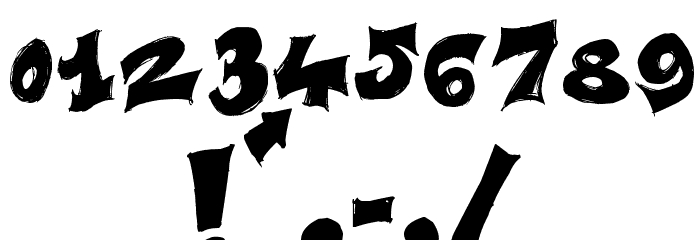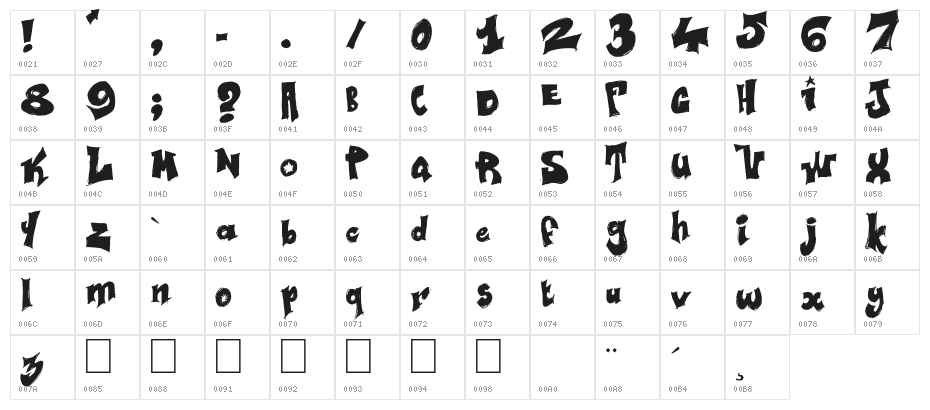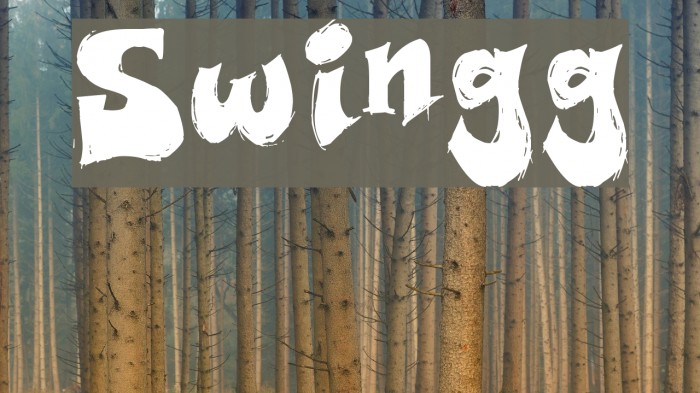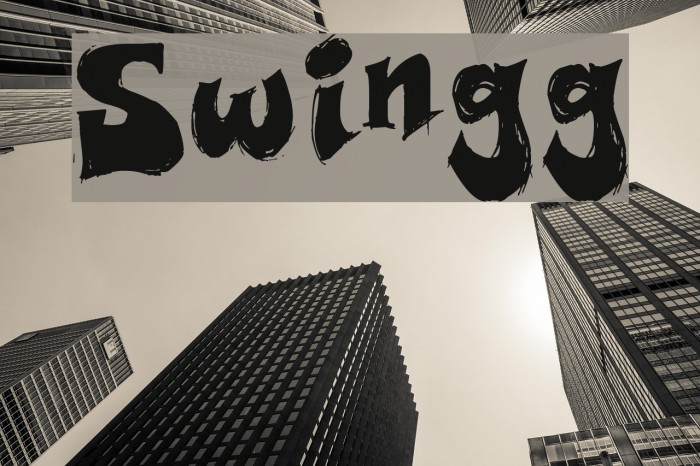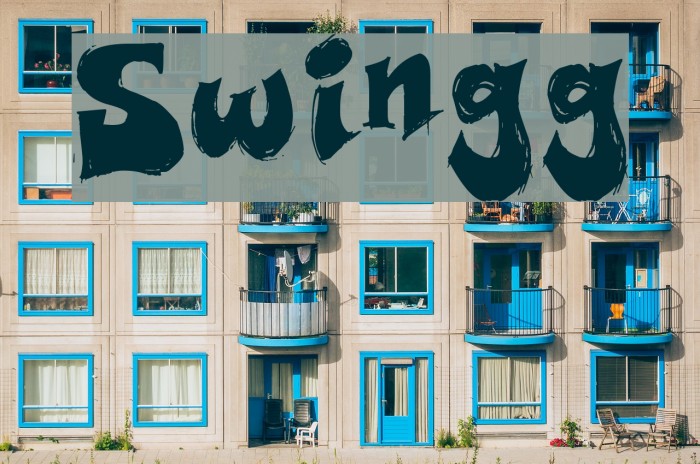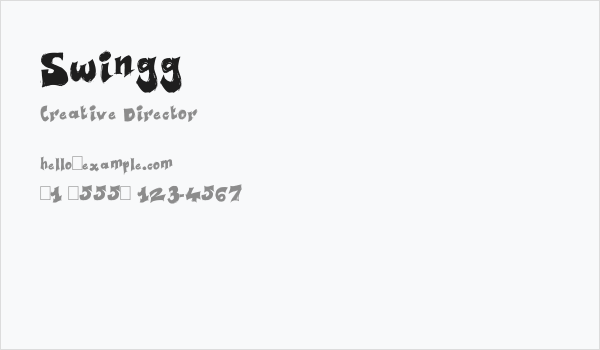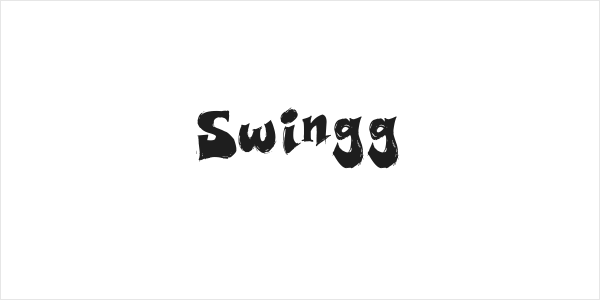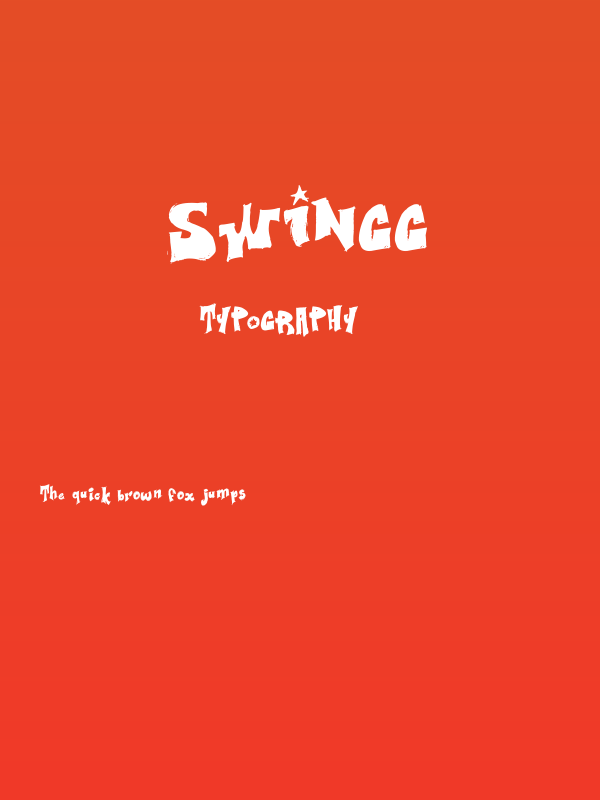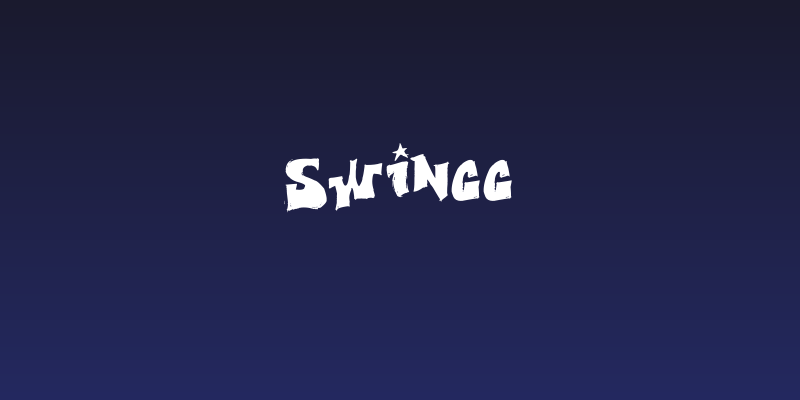
Swingg Font
Swingg Description
This font features a bold and dynamic style with a brush-like texture, giving it a lively and energetic appearance. The characters are irregular and slightly distorted, adding a sense of movement and spontaneity. The uppercase letters have a strong presence, while the lowercase letters maintain a playful yet cohesive look. Numbers and special characters follow the same energetic theme, making the font suitable for creative and expressive designs. The overall impression is one of artistic flair and bold expression, perfect for projects that require a standout visual impact.
| Proposed Projects | Ideal for posters, album covers, graffiti art, and any project that requires a bold, artistic touch. |